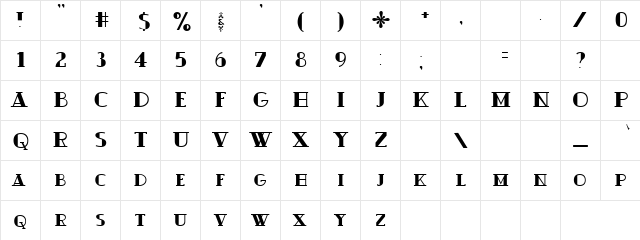
Closed Regular
Design Context for Closed Typeface
Closed is a composed and adaptable typeface that performs quietly and consistently across a wide range of design contexts.